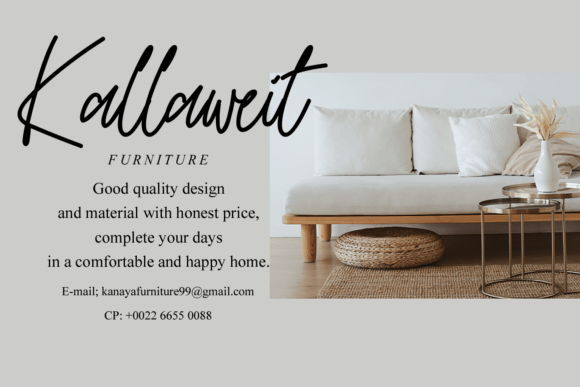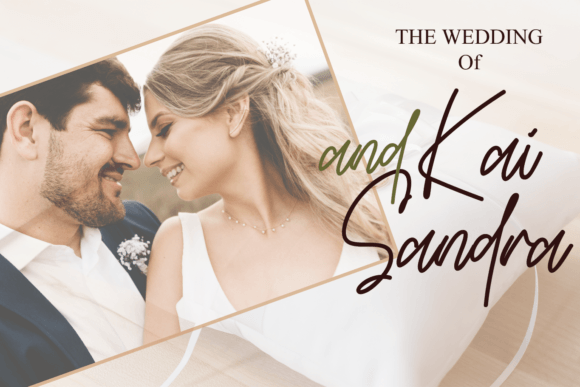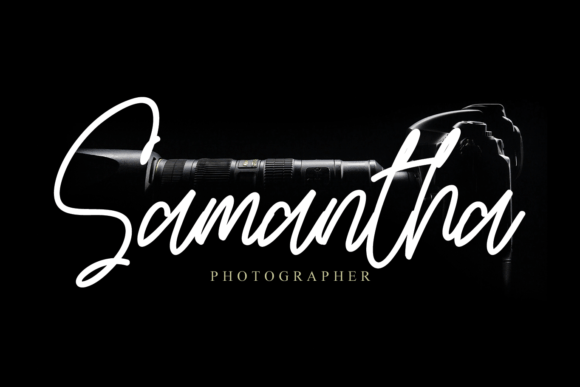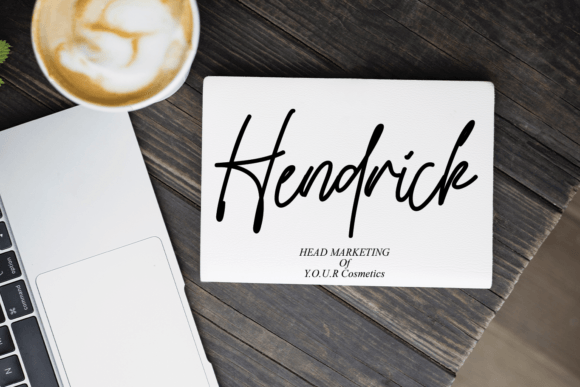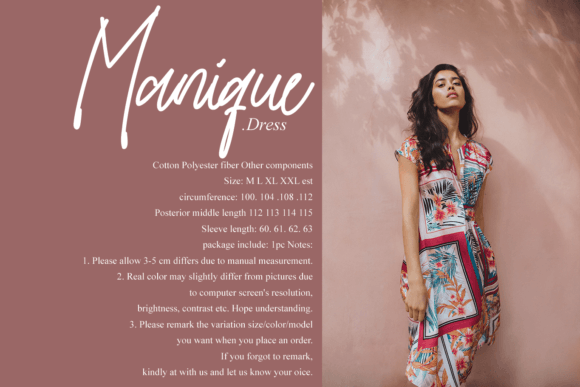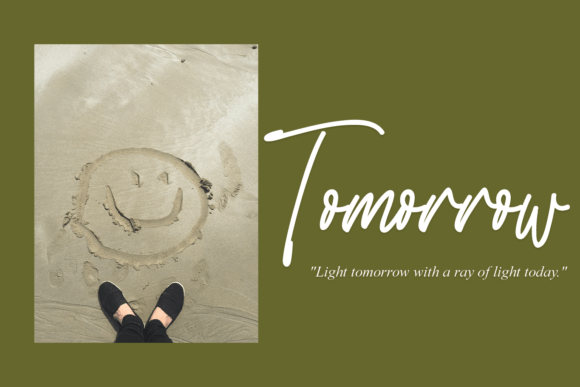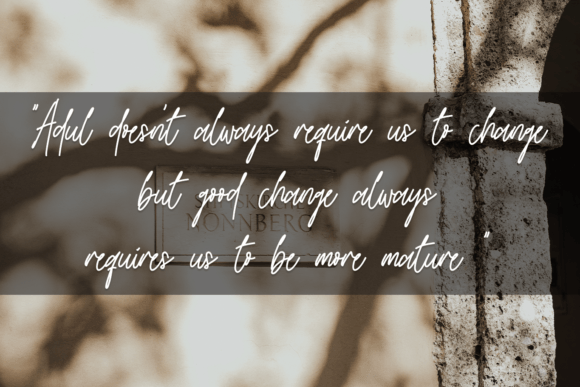
Single Font
About Single Font
Single, an exquisite handwritten font, is a masterpiece of design destined to win your heart as a true favorite. With a delicate touch, it effortlessly balances the timeless charm of classy calligraphy with a contemporary and fresh feel.
In the realm of fonts, Single stands out as a work of art, showcasing a meticulous design that reflects both sophistication and modernity. Its handwritten elegance adds a personal and authentic touch to any project, making it a versatile choice for a range of creative endeavors.
While maintaining the classic influences of calligraphy, Single manages to feel current and vibrant, making it suitable for various applications. Whether you’re working on branding materials, invitations, social media graphics, or any design project that requires a touch of elegance, Single rises to the occasion.
Prepare to make Single your go-to font, as it seamlessly adapts to different contexts, bringing a unique character to each project. Its ability to blend the timeless with the contemporary ensures that your designs resonate with a captivating allure. Fall in love with Single, and let it become the signature touch that elevates your creative expressions to new heights.